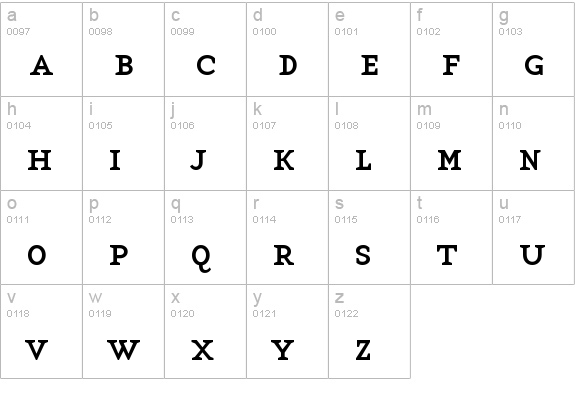
BaseTwSerifSmallCaps Regular Font Details
BaseTwSerifSmallCaps Regular is the standard, neutral variant in the BaseTwSerifSmallCaps typeface family \xE2\x80\x94 well suited to general body text, paragraphs, and standard typographic work.
BaseTwSerifSmallCaps Regular font is a classic and elegant typeface that exudes sophistication and style. Its small caps design adds a touch of refinement to any project, making it ideal for use in headings, titles, and other prominent text. The timeless serifs give this font a traditional yet versatile look that can be easily applied to both print and digital media. What makes BaseTwSerifSmallCaps Regular font even more appealing is that it is available for free download at FontsMarket.com. This means you can access this high-quality font without any cost, making it a valuable addition to your font collection. Whether you're working on a professional design project or simply looking to enhance your personal creations, BaseTwSerifSmallCaps Regular font is sure to elevate your typography game.